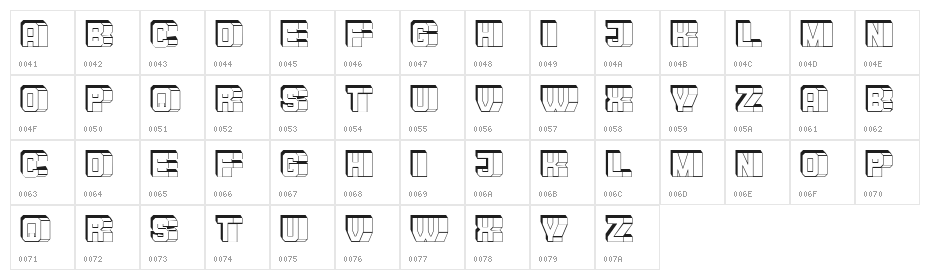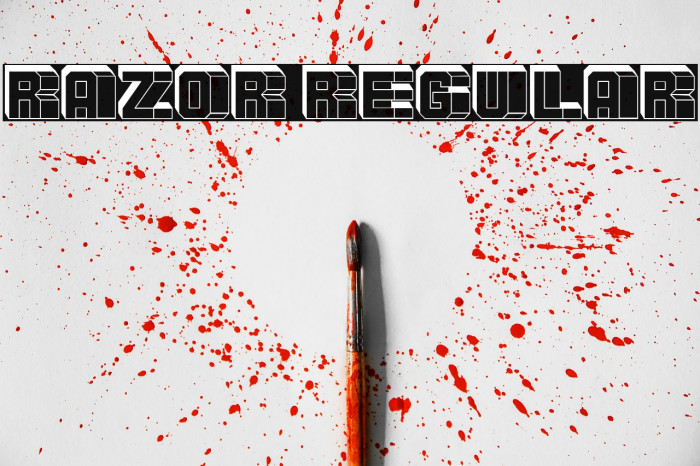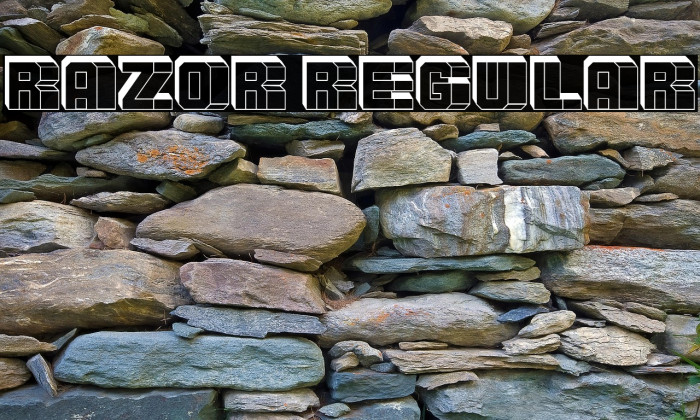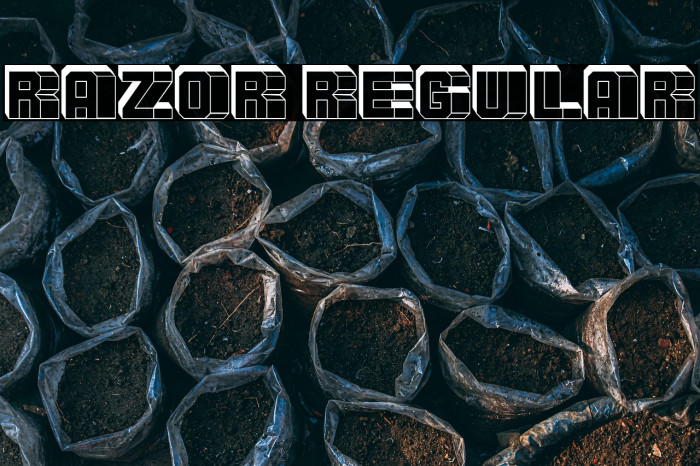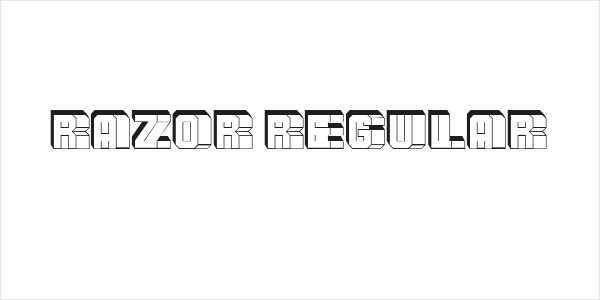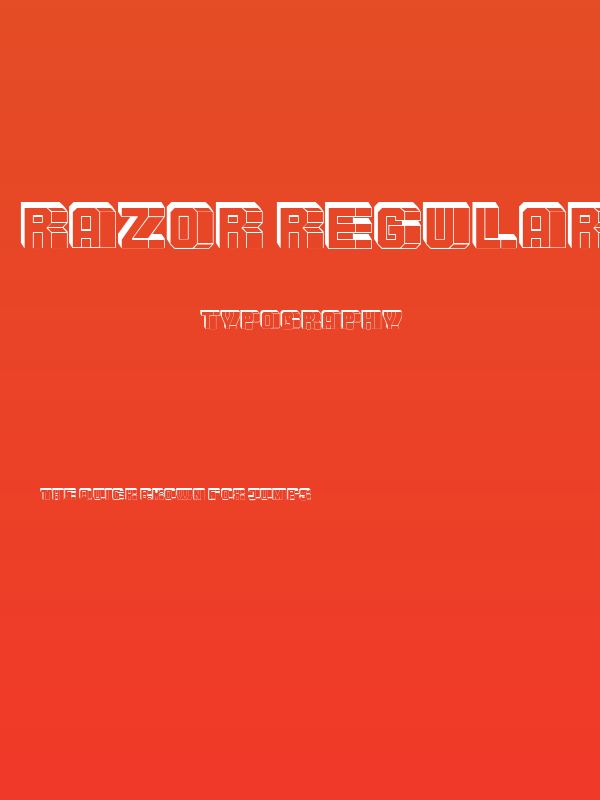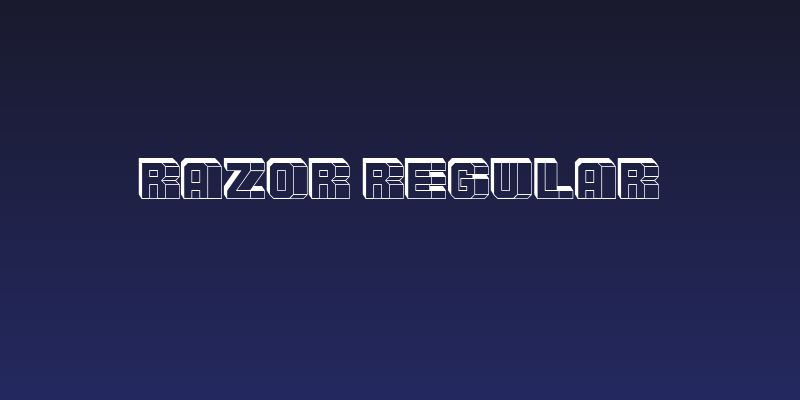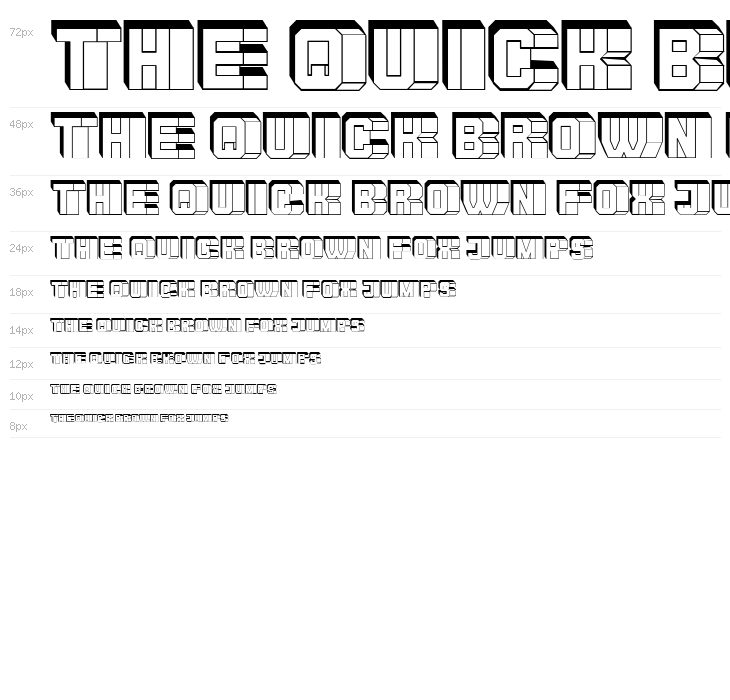
Razor Regular Font
Razor Regular Description
This font features a bold, geometric design with a three-dimensional effect, giving it a striking and modern appearance. The characters are constructed with sharp angles and clean lines, creating a sense of depth and dimension. The use of negative space within the letters enhances the visual impact, making it ideal for attention-grabbing headlines or logos. The uppercase letters are particularly prominent, with a consistent structure that maintains readability despite the complex design. This font is perfect for projects that require a contemporary and edgy look.
| Proposed Projects | Ideal for modern branding, posters, album covers, and digital media. |